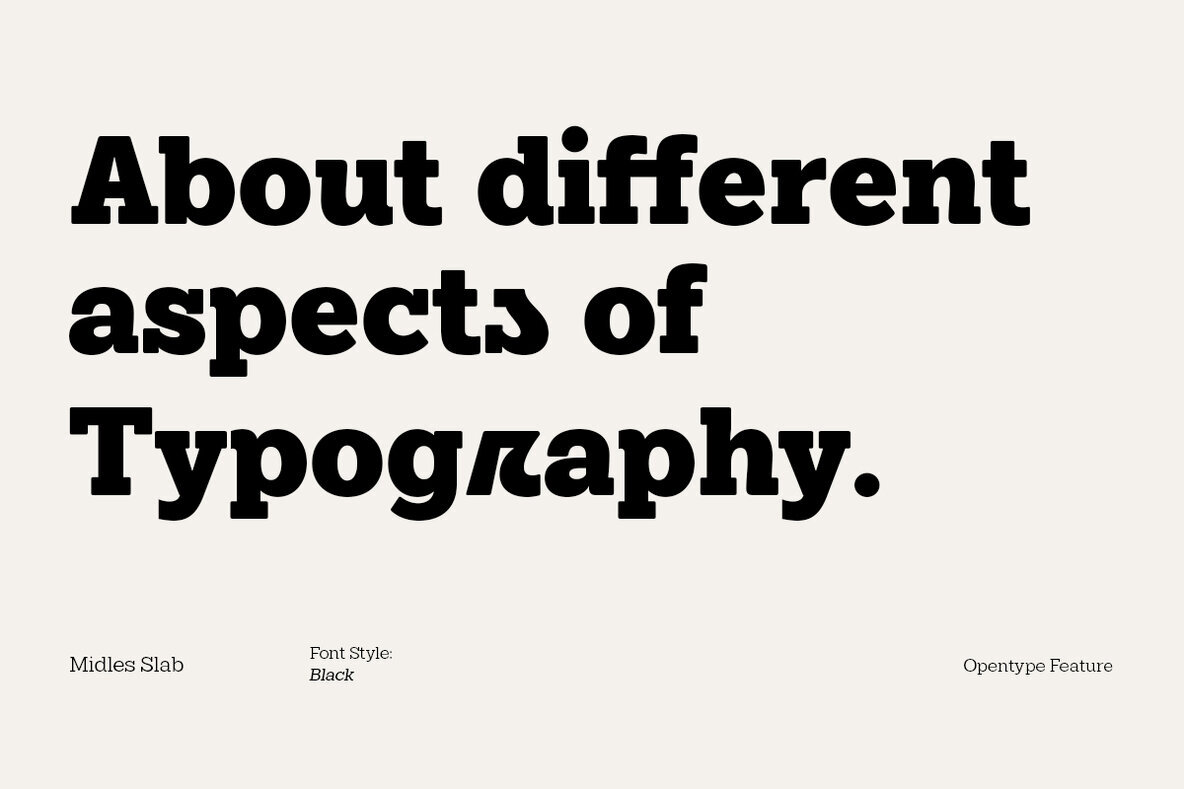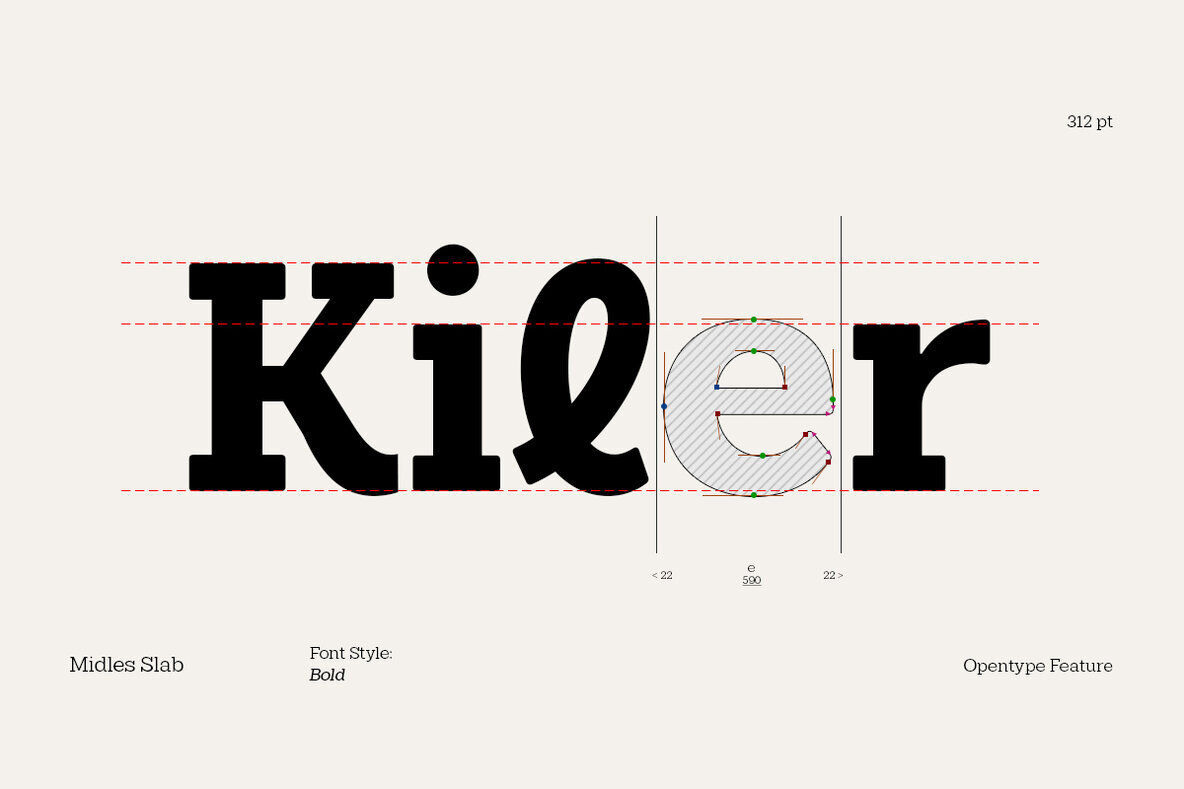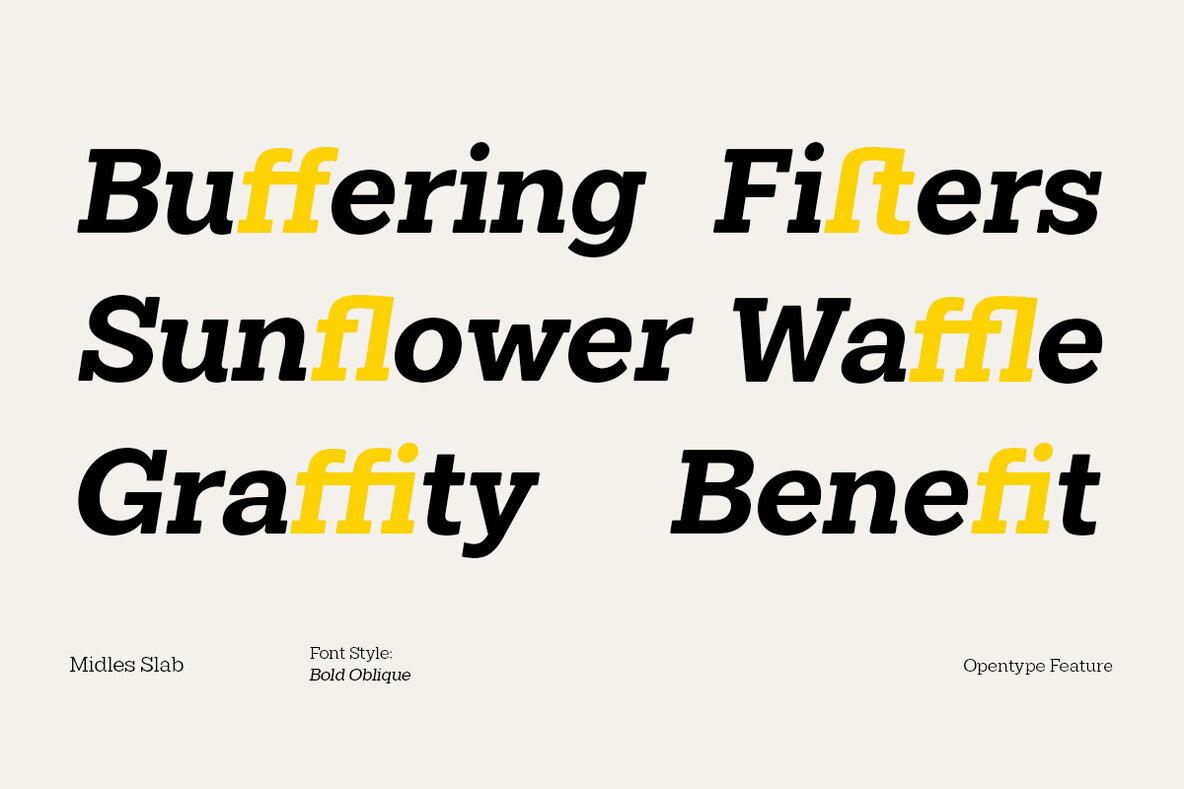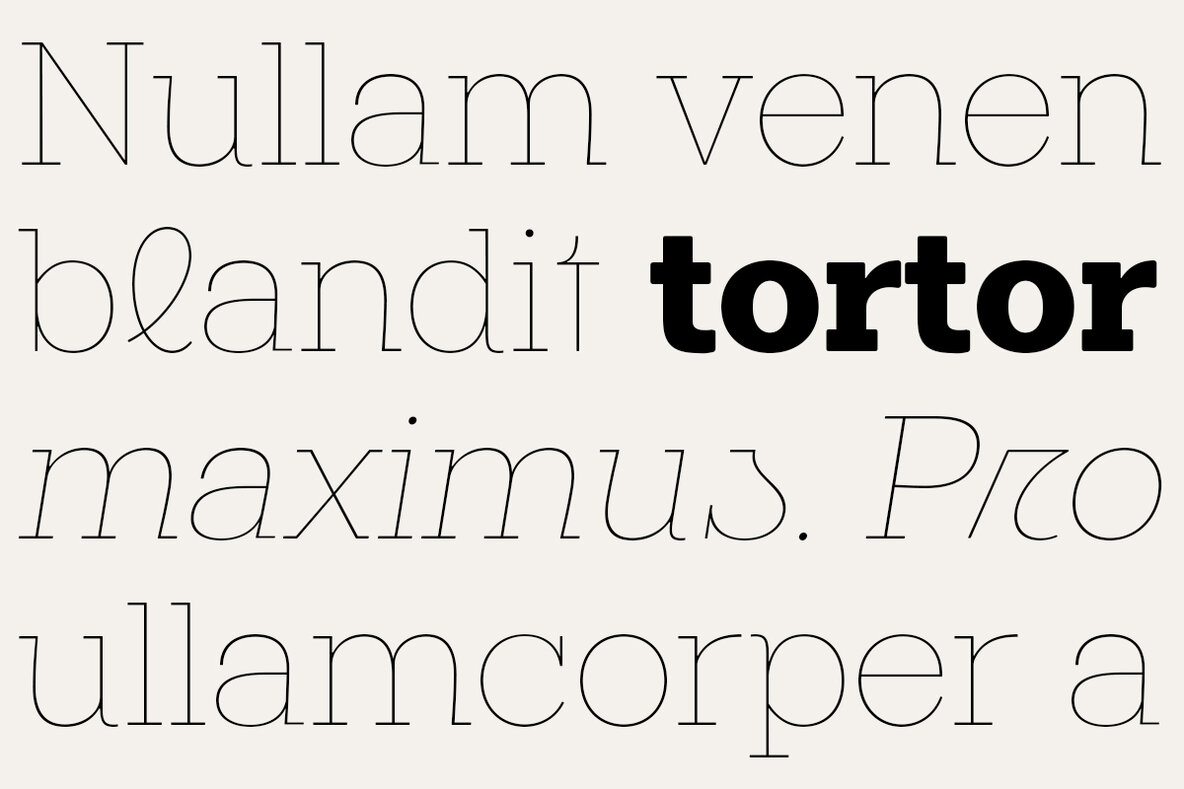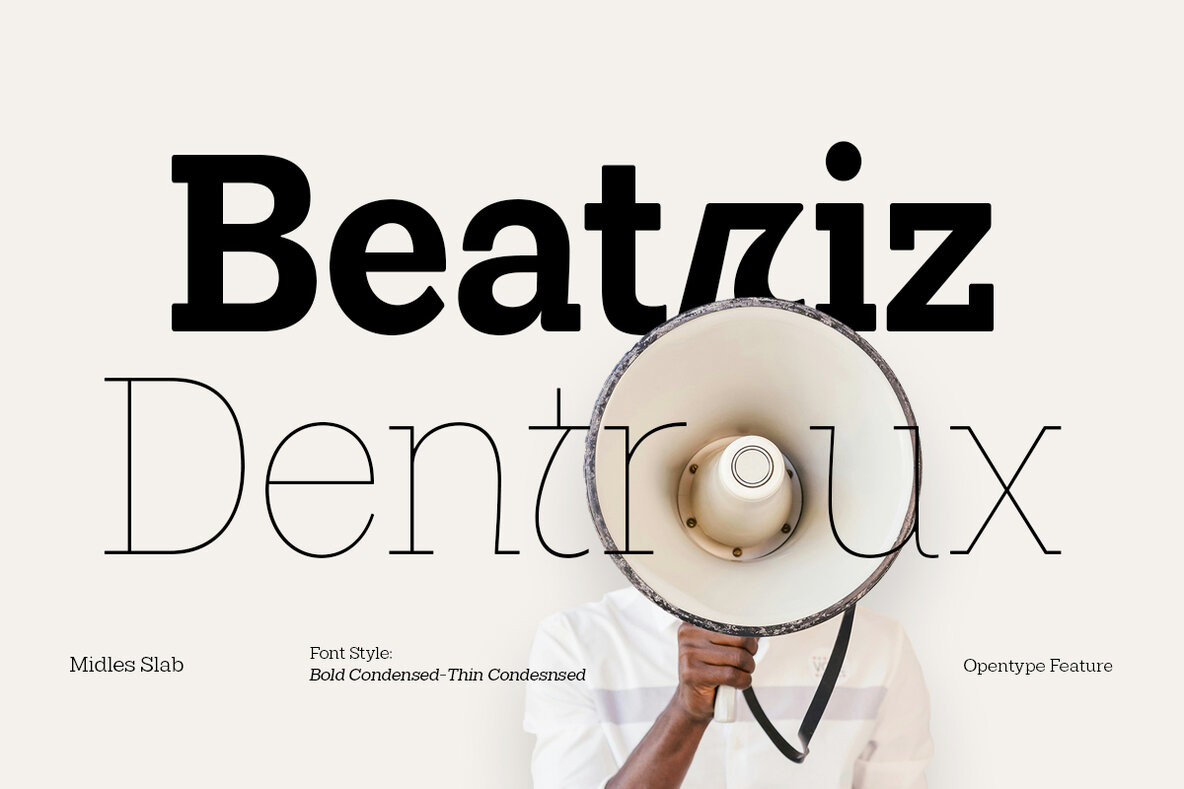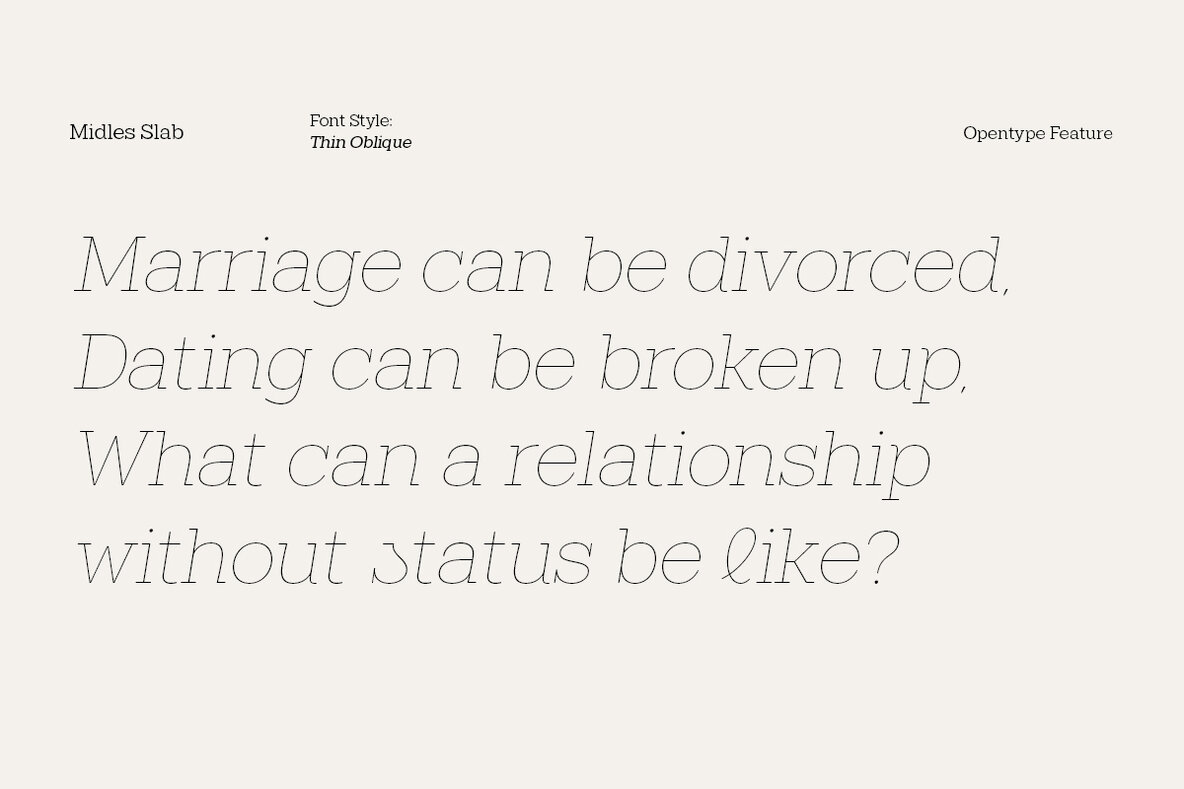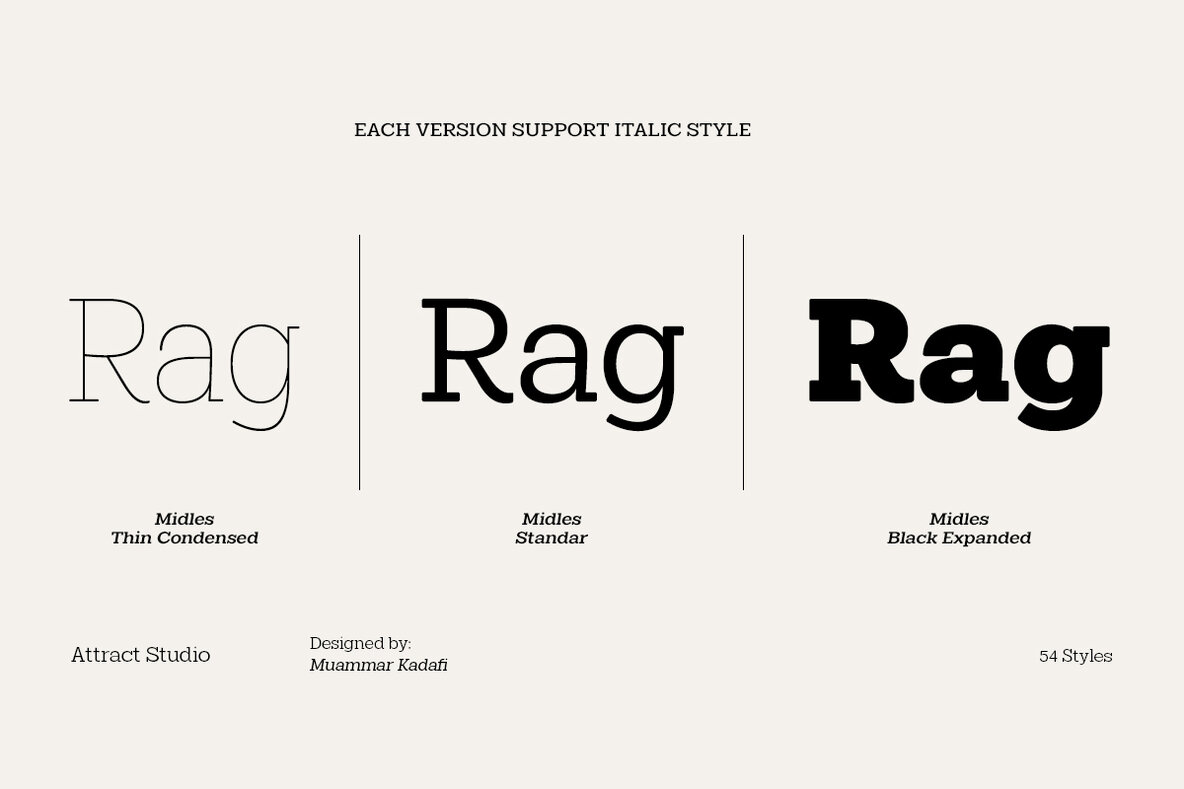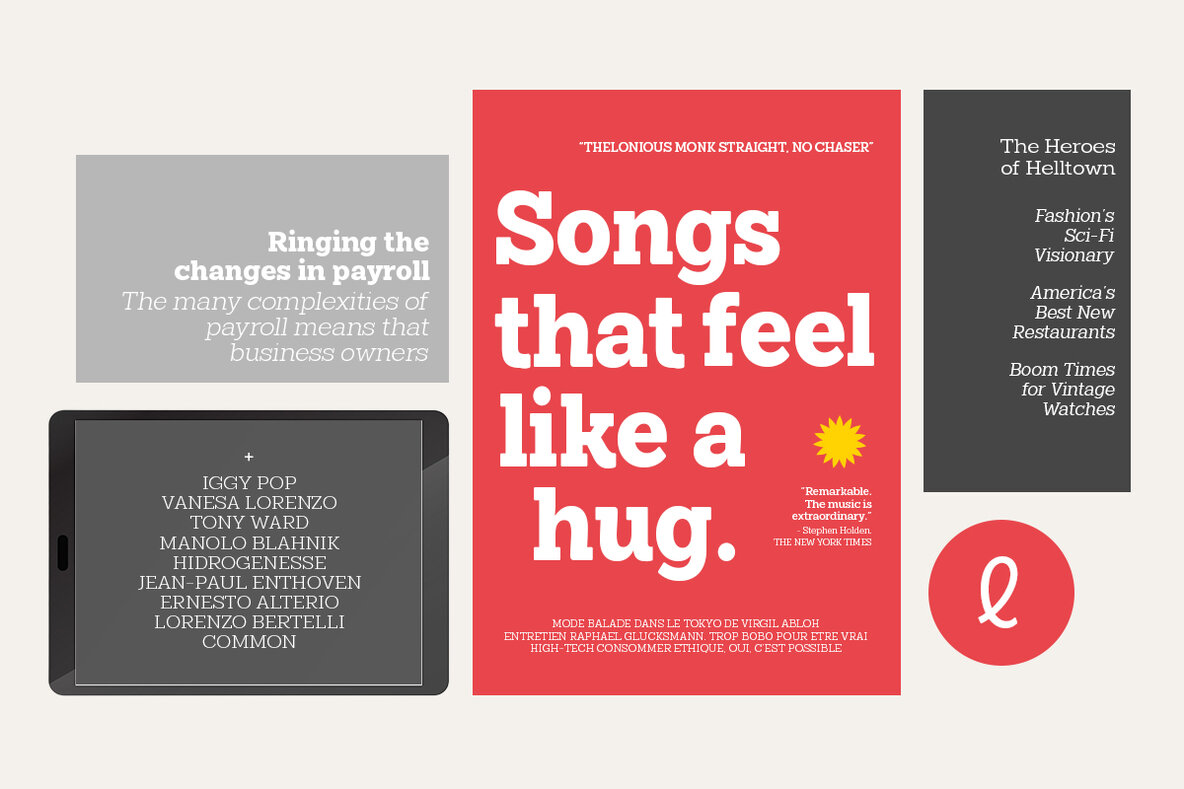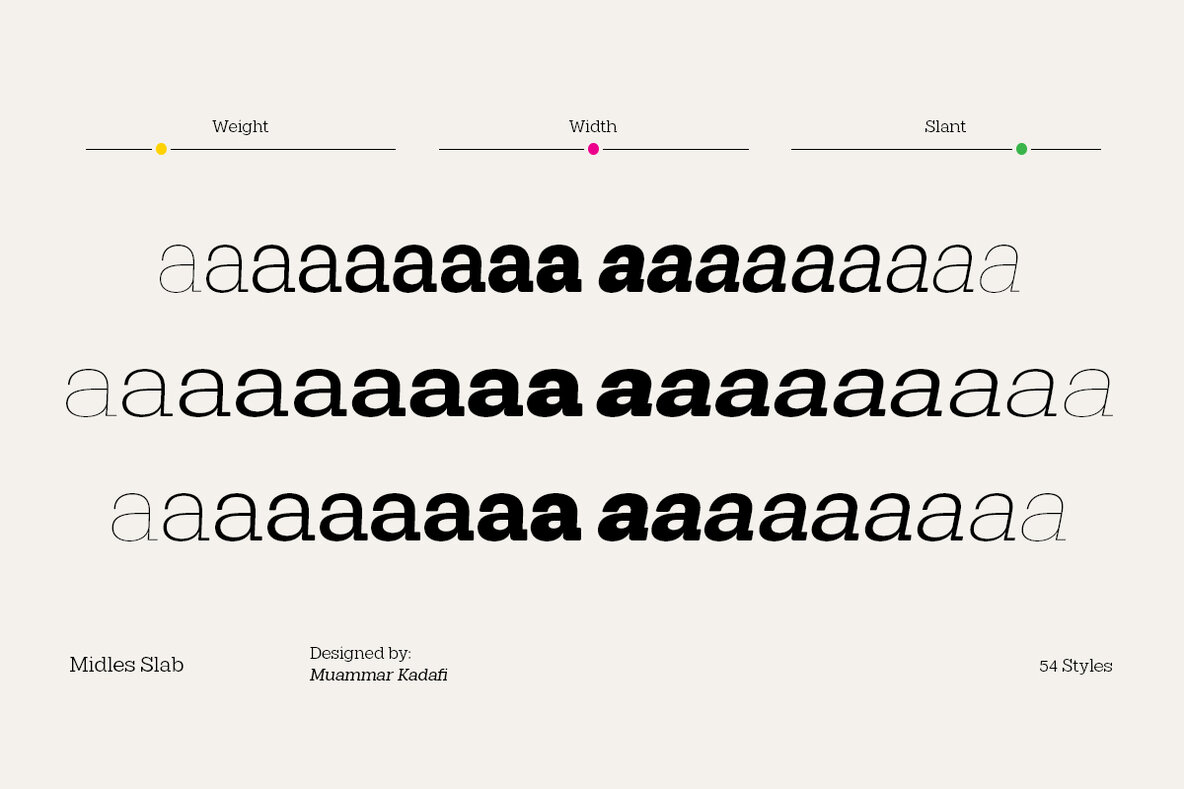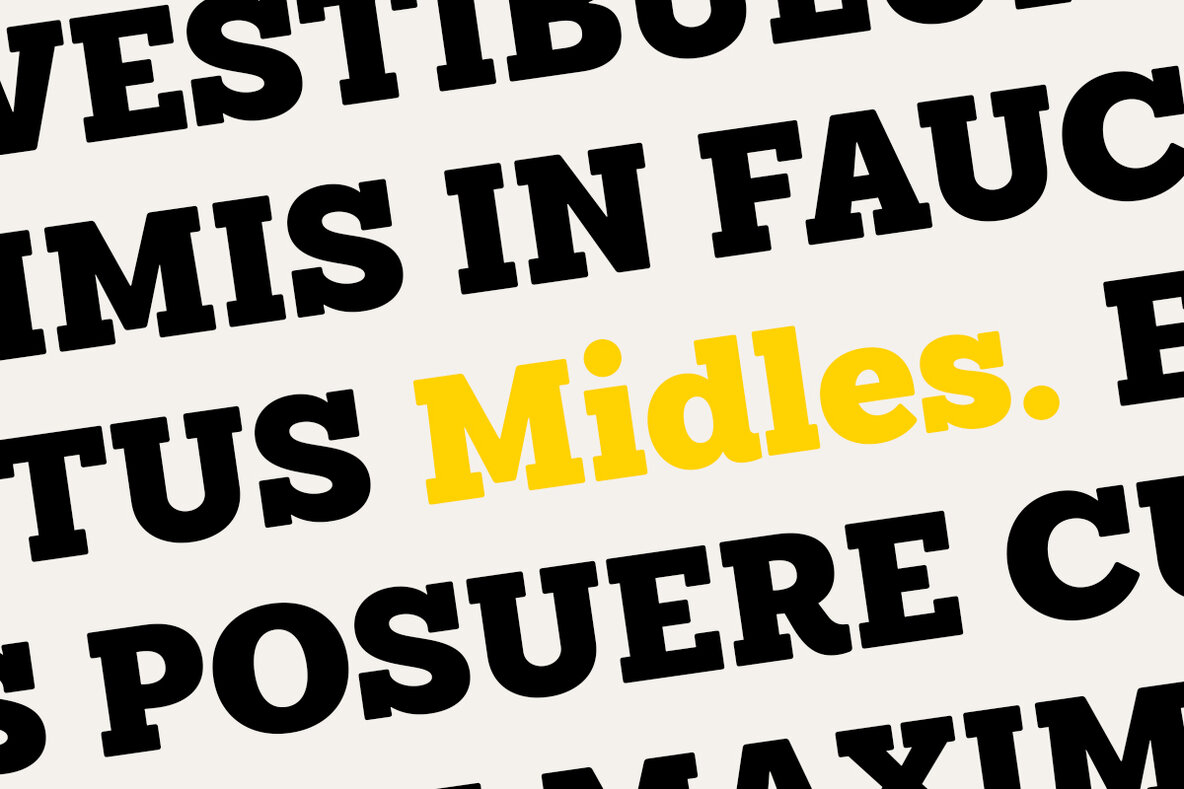
Midles Slab Font
Midles Slab is an evolution of the Venlury font that dares to step outside the comfort zone of the classic slab style. As a superfamily of 54 weights, including a matching italic, Midles Slab is designed specifically for editorial use. It offers a clean look with perfect balance in every construction, from Thin to Black, and comes in Condensed and Expanded variations. Not only that, Midles Slab is also equipped with a variety of useful features, including extensive Latin coverage and a variety of OpenType features. This makes it a very useful tool for graphic designers in creating professional and aesthetic work.